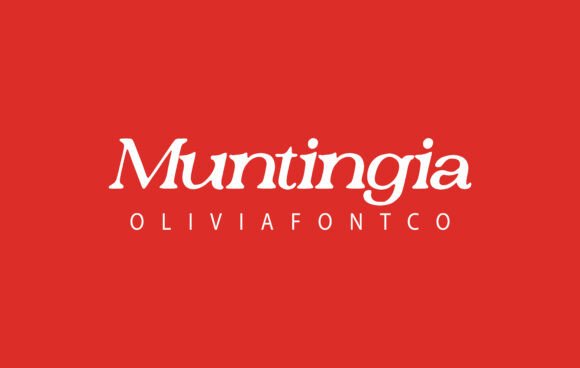
Muntingia: A Handwritten Serif for Editorial Romance
Last month, I sat down to refresh the header for a lifestyle blog I help edit. The existing design felt stiff—clean but cold, like a room with no natural light. I needed a typeface that would warm up the title area without losing the professionalism the publication had built over three years. That is when I discovered Muntingia, and the shift in mood was immediate.
Muntingia is a serif font, but not in the traditional sense. It carries a handwritten quality that gives it a romantic, almost personal touch. The strokes feel deliberate yet fluid, as though each letter was penned by hand and then refined for the screen. For a blogger or editorial designer working on content that needs to feel approachable and crafted, this font offers a rare balance of polish and personality.
The Moment I Discovered Muntingia
I was testing pull quotes for a digital magazine layout when I first saw Muntingia in action. The article was a reflective piece about seasonal living, and the existing serif choices felt too academic. I swapped in Muntingia for the pull quotes, and the entire spread softened. The letters sat comfortably in the layout, drawing the eye without shouting. That is when I realised this typeface was not just decorative—it was editorial in the truest sense.
Muntingia is classified as a serif font, but its handwritten roots set it apart from traditional serifs like Garamond or Baskerville. The letterforms have a natural rhythm, with slight variations in stroke weight that mimic the pressure of a pen. This gives the font an organic quality that feels grounded rather than manufactured. For content creators who value authenticity in their publication identity, Muntingia brings a human touch to digital and print materials alike.
Visual Character and Editorial Mood
What struck me most about Muntingia is how it manages to be both delicate and sturdy. The serifs are present but not heavy, and the ascenders and descenders have a gentle curve that prevents the text from feeling boxy. In a blog header, this font creates an inviting entry point. In a magazine cover title, it lends a sense of warmth and intimacy that is hard to achieve with more mechanical typefaces.
The romantic touch in Muntingia is subtle. It does not lean into ornate flourishes or exaggerated swashes. Instead, the romance comes from the imperfect alignment of certain letter pairs and the slight bounce in the baseline. This makes it ideal for wedding guides, recipe ebooks, and coaching workbooks where the content should feel personal and encouraging. I tested it on a printable planner page, and the headings immediately looked more approachable than the sans serif I had been using.
For editorial designers, the font supports visual hierarchy beautifully. When used for chapter openers or section headings, Muntingia creates a clear focal point without needing bold weight or size. The natural contrast between thick and thin strokes gives the text depth, so even at a medium size, it commands attention. I found that pairing it with a clean sans serif for body copy—something like a geometric sans—allowed Muntingia to shine as the display element without overwhelming the layout.
Testing Muntingia in Real Layouts
I put Muntingia through several editorial scenarios to see how it held up. First, a newsletter graphic for a creator who writes about slow living. The headline used Muntingia at 48 points, with a soft serif for the subheading and a sans serif for the body. The result was cohesive and calm. Subscribers commented on the “warm feel” of the email, which I attribute partly to the typeface shift.
Next, I used Muntingia for a recipe ebook cover. The title needed to feel homemade but not amateur. Muntingia delivered. The handwritten quality suggested a personal collection of family recipes, while the serif structure kept it readable and credible. I also tested it for pull quotes in the same ebook, and it worked well as a contrast to the body text, which was set in a readable serif.
For a wedding guide, I used Muntingia for the section headings and the cover title. The romantic tone aligned perfectly with the content theme. The font gave the guide a bespoke feel, as if each page had been hand-lettered for the couple. I paired it with a classic serif for longer reading sections, which provided a natural hierarchy and kept the body text comfortable for extended reading.
I also explored using Muntingia in a digital magazine layout. The publication focuses on art and culture, and the editorial team wanted a typeface that felt curated but not cold. Muntingia was used for article titles and deck headings. The serif details added a layer of sophistication, while the handwritten element prevented the design from feeling too formal. Readers responded well, with engagement on the title-heavy spreads noticeably higher than previous issues.
Where Muntingia Shines and Where It Doesn’t
After testing Muntingia across multiple projects, I have a clear sense of its strengths. It excels as a display font for:
- Blog headers and site titles
- Magazine and ebook covers
- Newsletter headlines and graphics
- Pull quotes and chapter openers
- Section headings in workbooks and planners
- Decorative accents in printable guides
In these roles, Muntingia adds warmth, personality, and a sense of craftsmanship. It supports publication identity by creating a consistent, memorable visual voice. For content brands that want to feel approachable and refined, this font is an excellent choice.
However, Muntingia is not suitable for body copy or dense paragraphs. The handwritten variation that makes it so charming at display sizes can become tiring when reading long passages. At small sizes, especially on screen or mobile, the subtle stroke weight changes may reduce readability. I would not recommend it for captions, footnotes, or formal reports where clarity and speed of reading are priorities. For those uses, pair it with a highly readable serif or a clean sans serif font that provides a stable reading experience.
For mobile layouts, Muntingia works best at larger sizes where the letterforms have room to breathe. In newsletter headers or social media graphics, it reads clearly. But if you are designing a layout with small text, test it thoroughly on different devices before committing. In my tests, Muntingia held up well on tablet and desktop screens but required careful sizing for mobile to maintain legibility.
Practical Pairing and Licensing Notes
When pairing Muntingia with other fonts, keep the mood consistent. A clean sans serif—something like a geometric or humanist sans—creates a modern contrast that lets the handwritten quality stand out. For a more traditional editorial feel, pair it with a readable serif for body text. Avoid pairing it with another display font that competes for attention, as the layout can become noisy quickly.
Before using Muntingia in any commercial project, check the licensing details carefully. This font is ideal for ebooks, printables, templates, newsletters, and client publications, but only if the license permits those uses. Review the included file formats—typically OTF, TTF, WOFF, and WOFF2—to ensure compatibility with your design tools and web platforms. Also check for multilingual support if your content reaches a global audience. Muntingia may include alternates, ligatures, and stylistic sets that expand its versatility, so explore those features during the design phase to get the most out of the typeface.
For digital products like printable planners or course PDFs, confirm that the license covers redistribution. Some font licenses restrict usage in templates or paid downloads. A quick read of the terms will save you from legal issues later and ensure you are using Muntingia in a way that respects the designer’s work.
In the end, Muntingia is a font that rewards thoughtful application. It is not a workhorse for every editorial need, but for the moments when you want your text to feel personal, romantic, and crafted, it is a strong choice. Whether you are designing a lifestyle blog header, a recipe ebook, a wedding guide, or a digital magazine spread, this typeface brings a warmth that resonates with readers. And in a publishing landscape where content brands compete for attention and trust, that human quality matters more than ever.